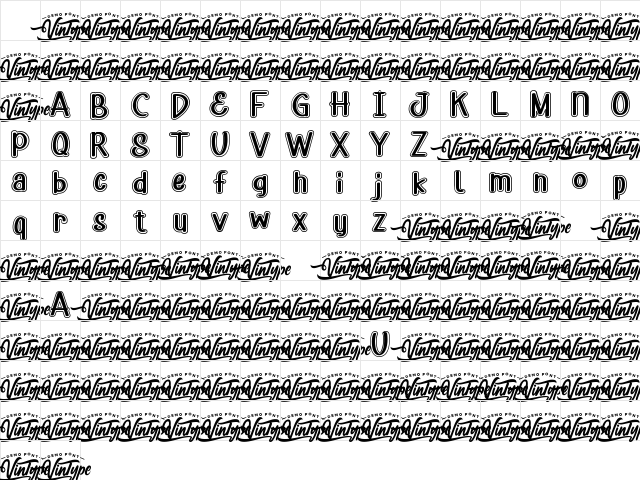
Complete Happy Cartoon Demo Regular glyph index. Displaying only characters natively supported by Happy Cartoon Demo Regular font.
Happy Cartoon Demo has an approachable, lighthearted character - its loose, expressive forms are well-suited to children's content, casual branding, and fun-first design.
Font Pairing: Pairs well with a rounded or humanist sans for body copy, maintaining the friendly tone without relying on Happy Cartoon Demo to carry extended reading.
Pro Tip: Use Happy Cartoon Demo at larger display sizes where its expressive character can land. Pair with a clean, simple sans for body copy to maintain readability.